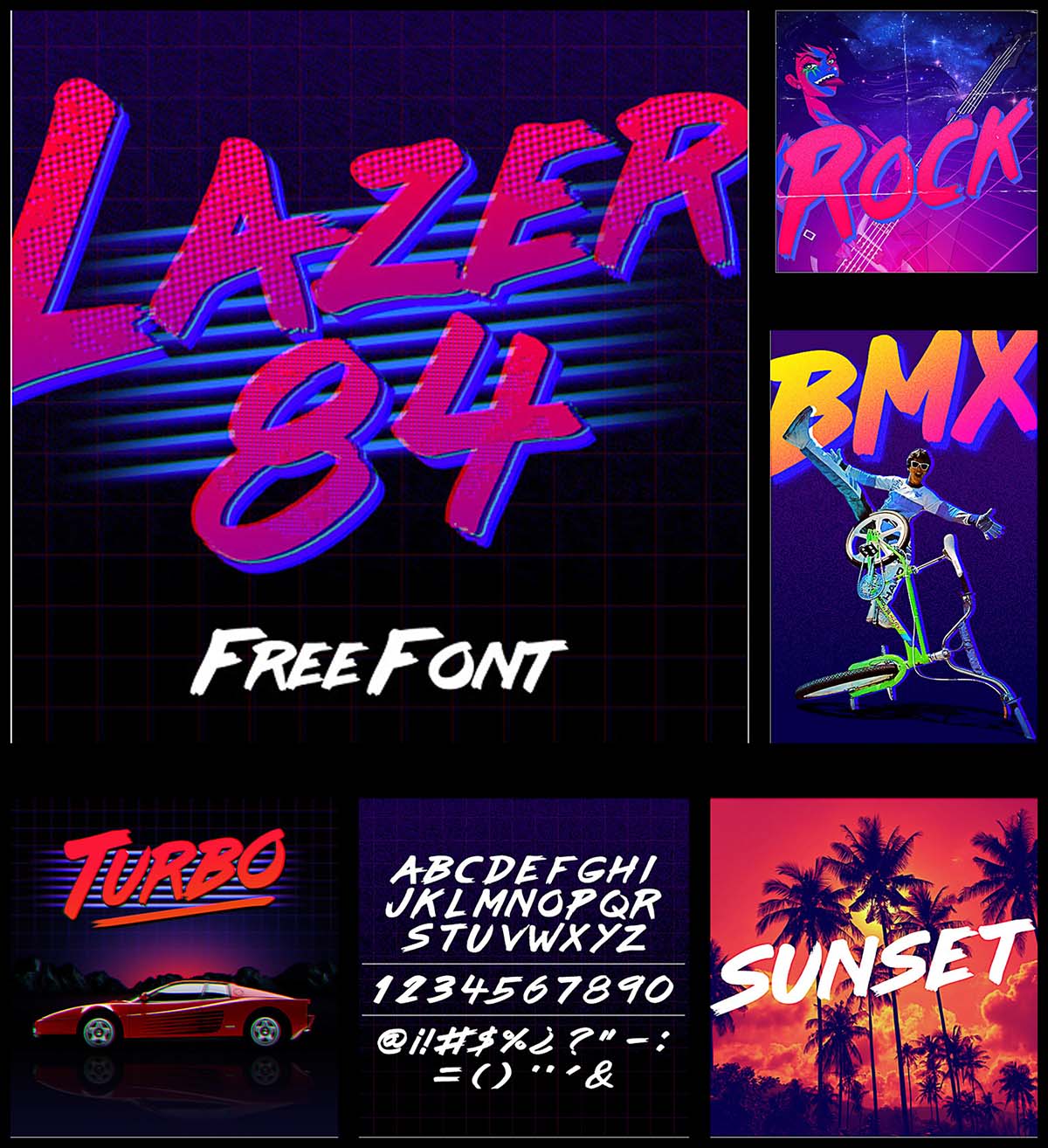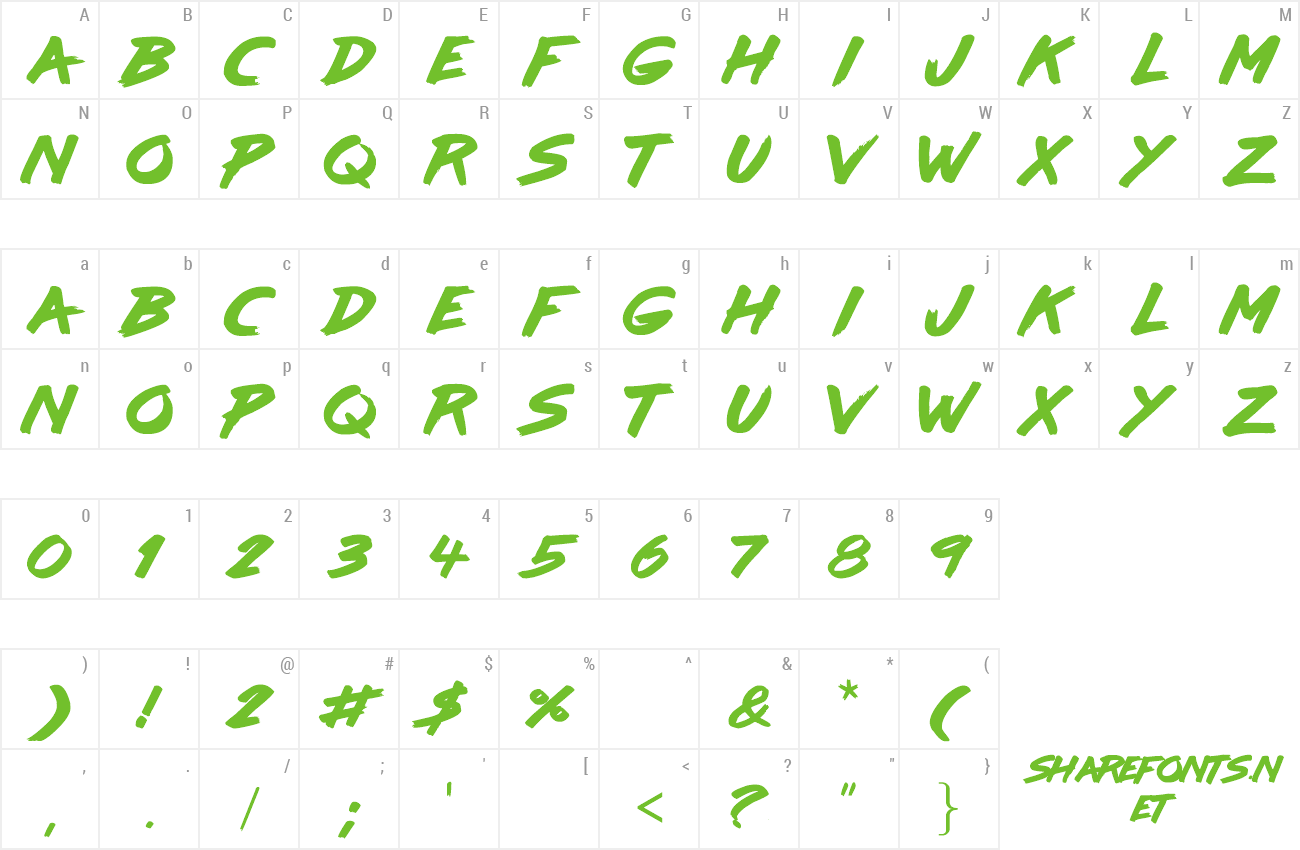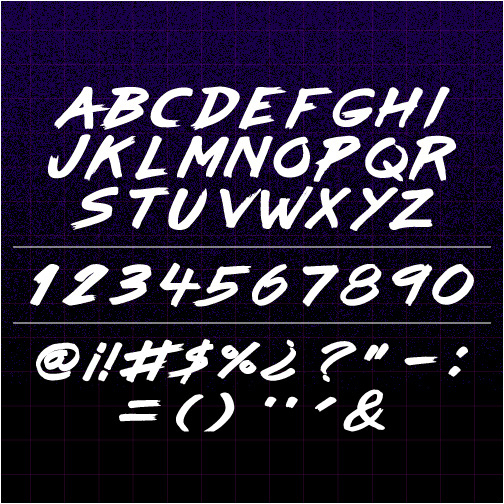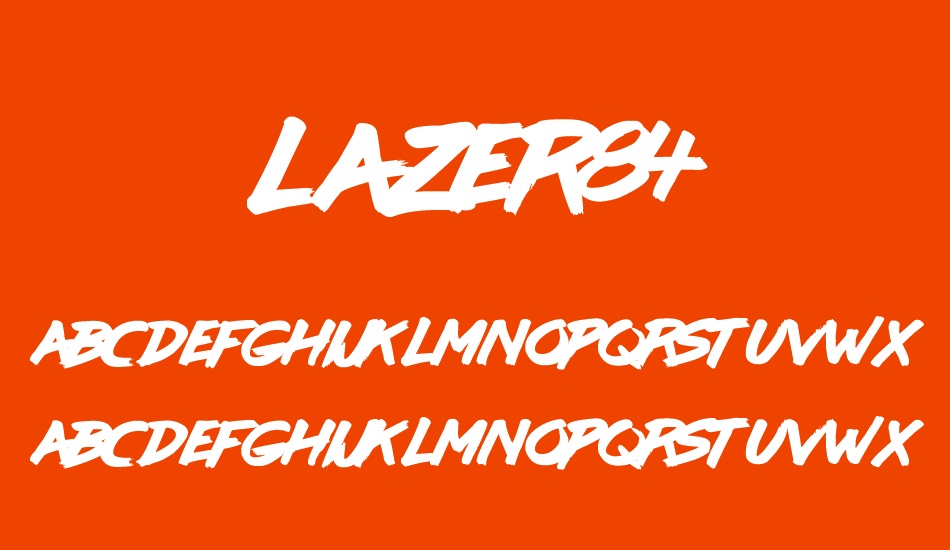
Lazer 84 Font
Lazer 84 Font - Web the tremendous style lazer 84 font was designed for the 1 time by one of the great graphic designers juan. This font include numbres, simbols and. Lazer 84 is a retro style brush font inspired in 80's.
Lazer 84 Is A Retro Style Brush Font Inspired In 80'S.
This font include numbres, simbols and. Web the tremendous style lazer 84 font was designed for the 1 time by one of the great graphic designers juan.